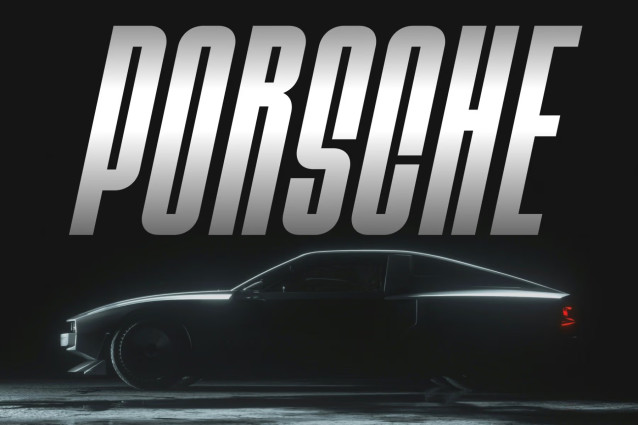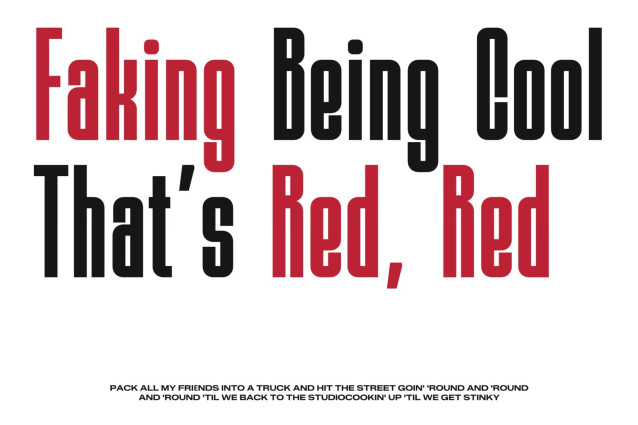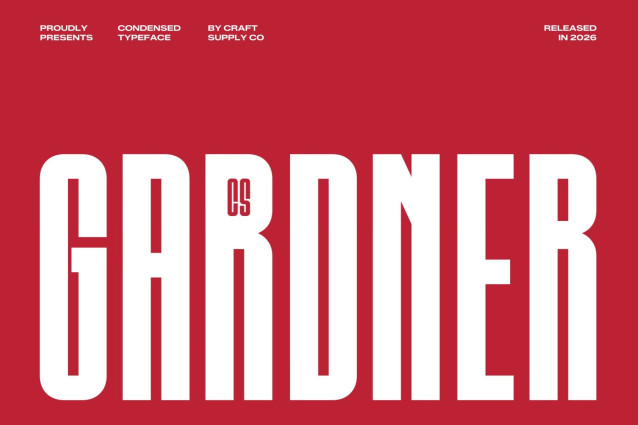
CS Gardner – Condensed Sans Serif with Modern Impact
Condensed Sans Serif for Strong Visual Presence
This is a compact and modern condensed sans serif font designed to create powerful visual impact in limited space. With its streamlined proportions and confident structure, this typeface delivers bold clarity while maintaining a clean and contemporary aesthetic. It is crafted for designers who need typography that communicates quickly, clearly, and effectively.
Engineered for Tight Layouts and Bold Headlines
The condensed design allows more content to fit into narrow spaces without sacrificing readability. Each letterform is carefully balanced to appear tall, strong, and highly legible, making this font ideal for headlines, posters, and branding where space efficiency is essential. This structure ensures your message remains clear and prominent in any layout.